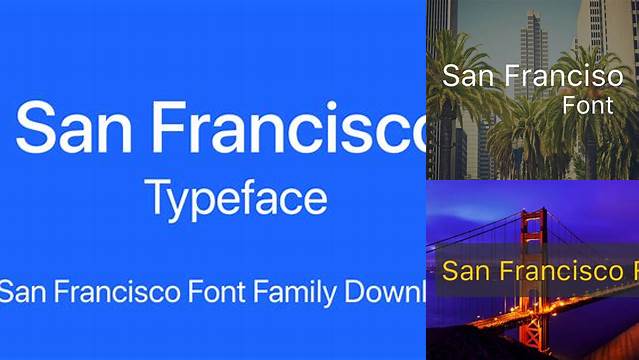
San Francisco Font: What Makes It Special?
First things first, what's the big deal about the San Francisco font? Well, it's not just any font; it's the official typeface of Apple! You'll find it everywhere, from your iPhone's interface to the macOS environment. Its clean lines, excellent readability, and modern aesthetic make it a go-to choice for many designers and developers. San Francisco is designed to be incredibly versatile, performing well on screens of all sizes, and in various applications. The design emphasizes legibility, especially at smaller sizes, making it perfect for user interfaces, mobile apps, and anywhere text needs to be crystal clear. It’s part of what makes Apple devices feel so seamless and user-friendly.
The beauty of the San Francisco font lies in its simplicity and elegance. Its design is carefully crafted to work well in various contexts. It’s not just about aesthetics; it is also about functionality. The font's weight and spacing are optimized for optimal readability on different devices. The family also includes different weights and styles, allowing designers to create varied and engaging layouts. This attention to detail reflects Apple's dedication to design. It is an example of how good typography can make a significant difference in user experience. San Francisco's universal appeal has solidified its place as a cornerstone of modern design.
Beyond its association with Apple, San Francisco has become a symbol of modernity, innovation, and accessibility. Because of this, many designers try to find the free download versions of this. It’s a bold choice that sets a project apart. The font's popularity has also spurred the creation of numerous resources where you can find San Francisco font and related versions. Whether you're a professional designer or a hobbyist, using San Francisco gives your work a touch of sophistication and technical precision. Its design principles guide the design and development of digital interfaces, ensuring clarity and ease of use. Allbestfonts.com and other platforms often provide links to this font. The San Francisco font stands out as a design element that blends seamlessly with its technology. Its adaptability ensures it continues to be a top choice for designers looking for a clean and contemporary typeface.
Understanding the Different Styles of San Francisco Font
The San Francisco font family is not just a single font; it’s a comprehensive collection of styles and weights. These include the standard SF Pro, designed for general use; SF Compact, optimized for smaller interfaces like the Apple Watch; and SF Mono, a monospaced version, ideal for coding and technical documents. Each style has been meticulously crafted to suit different needs, ensuring optimal readability and aesthetic appeal across various applications and display sizes. Let's explore the key differences between these styles and how you can make the most of them.
SF Pro is the most common version, and it’s used throughout the Apple ecosystem for everything from system text to application interfaces. Its design balances clarity with a modern look. It is the default choice for most text-based design projects. The range of weights ensures flexibility. You can use it in headings and body text, all while keeping a cohesive design throughout your project. SF Pro is your go-to if you want a versatile and adaptable font.
SF Compact is specifically designed for devices with limited screen real estate, like the Apple Watch. The letters are condensed and have an optimized design for smaller sizes. This makes the text easier to read on tiny screens. If you're working on interface designs for wearables or any other small-screen applications, SF Compact will be your best friend. It maintains clarity where the SF Pro might struggle.
Finally, SF Mono is the monospaced variant. Each character has the same width, making it perfect for code, technical documentation, and anything where precise alignment is crucial. Developers and programmers will appreciate SF Mono’s design that makes code lines easy to read and debug. This version gives a clean, professional look to all types of documentation. With all the options available, you have the tools to create the perfect aesthetic!
Where to Find a Free San Francisco Font Download
Alright, you are here because you want to find a free download of the San Francisco font, so where do you look? While the font is officially licensed, there are some reputable sources where you might find options to use the font. It is always important to ensure that you are obtaining the font legally and respecting the licensing terms. Platforms like allbestfonts.com and others are commonly cited. These sites may provide links to download or information about how to get it. Always check the license terms to confirm how you can use the font, whether for personal or commercial projects.
Be cautious and look for legitimate sources. It is a smart practice to protect yourself from potential legal issues. Check reviews and ensure the site is secure before downloading anything. You can typically check the license terms by looking at the download package or on the source’s website. Understanding the license is essential to avoid copyright infringements. Some versions may be free for personal use but require a license for commercial projects. Knowing the legal implications helps you stay compliant while using your favorite font.
When you are searching for a free download, you may encounter various sites. Before downloading, verify the source. Check the website's reputation and security. This will help protect your device from malware. This helps to prevent copyright infringement and ensures you are using the font ethically. Researching and understanding the licensing terms is important for using a font in your design projects.
The future of the San Francisco font will include improvements. It will likely be adapted to new technologies. The demand for accessible designs will continue to grow. The San Francisco font will likely remain essential. It will continue to inspire modern designs. San Francisco will continue to be a vital part of UI and UX design.